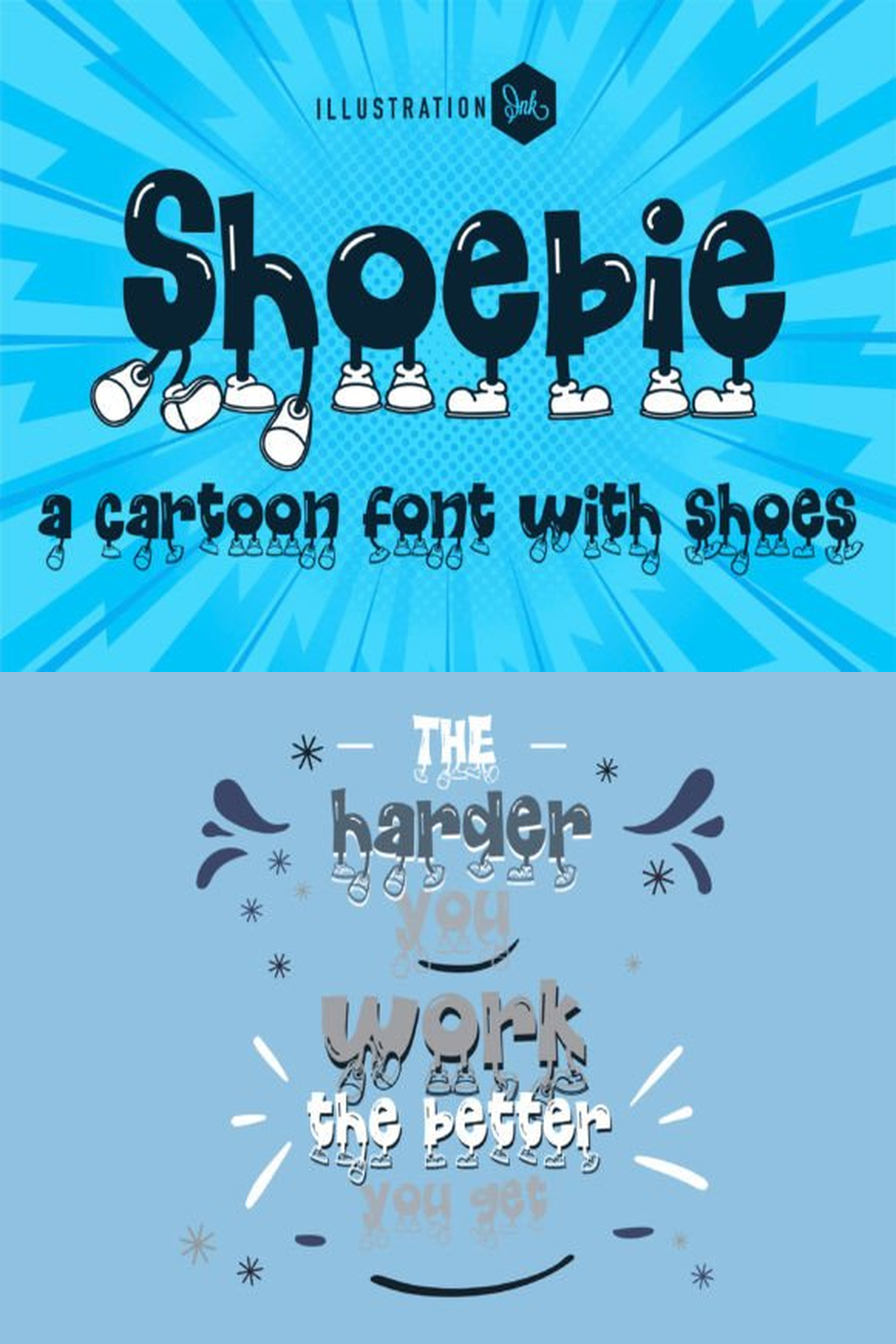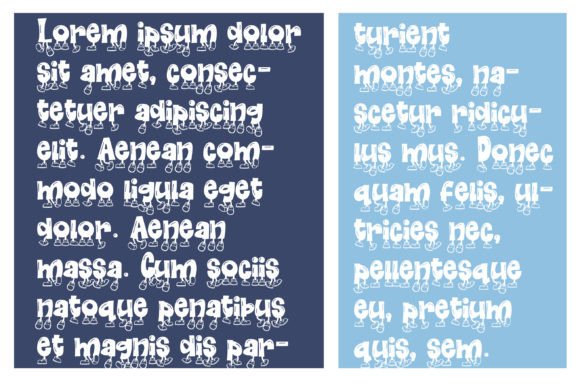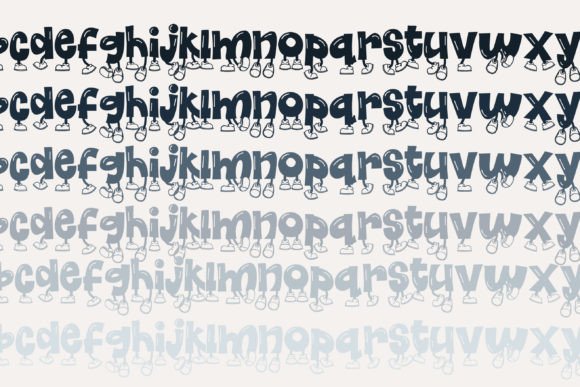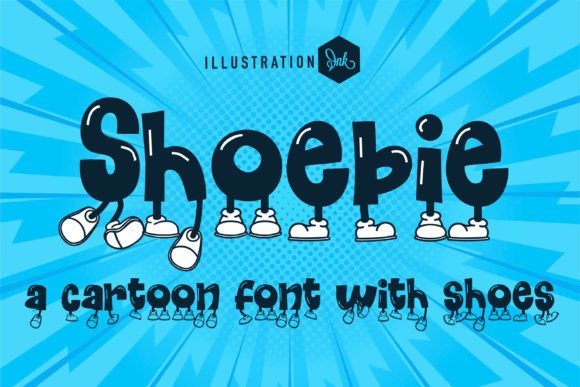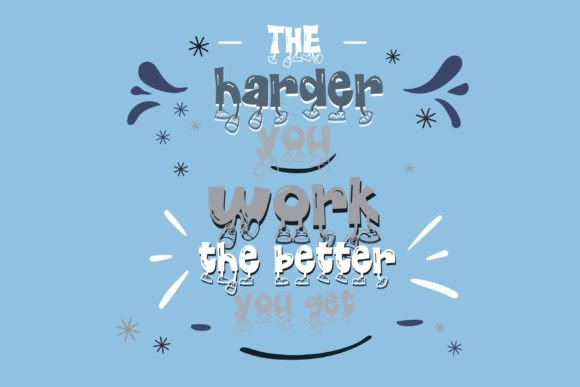
Shoebie Font: A Playful Cartoon Font with Unique Leggy Typography!
About the Shoebie Font
Unleash your creativity with Shoebie Font, a versatile font perfect for a wide range of applications. Shoebie is a fun, playful font perfect for cartoons and comics. It features whimsical, hand-drawn letters and even includes cartoon legs, adding a quirky and unique touch to your text. Ideal for creating eye-catching, animated designs!